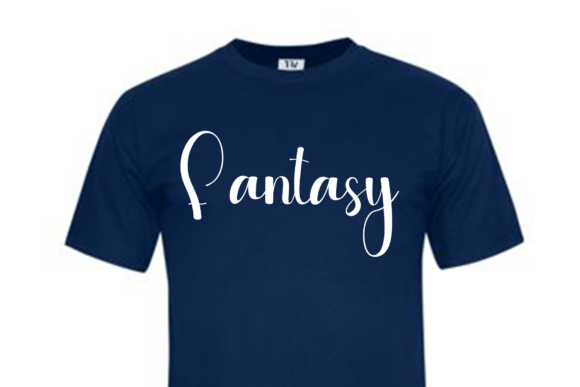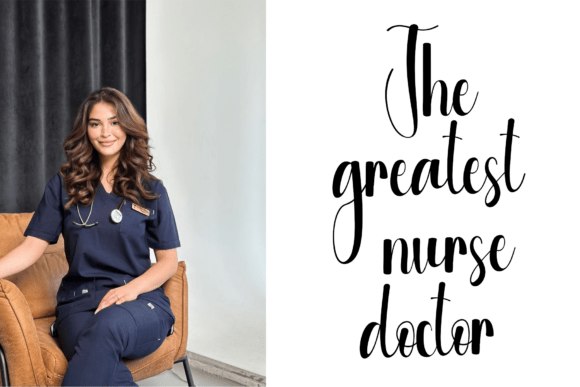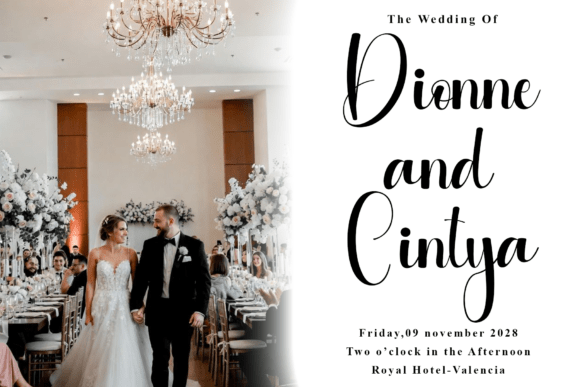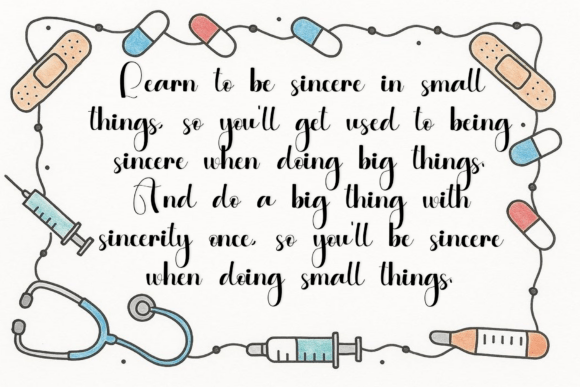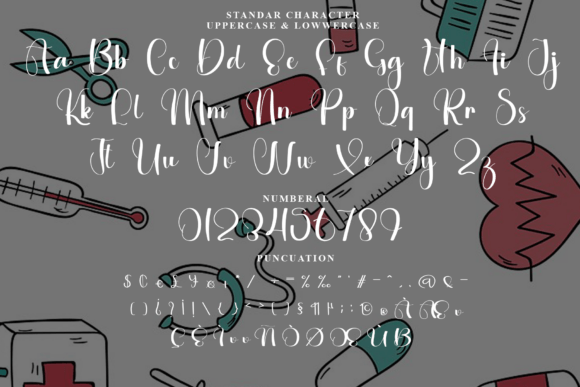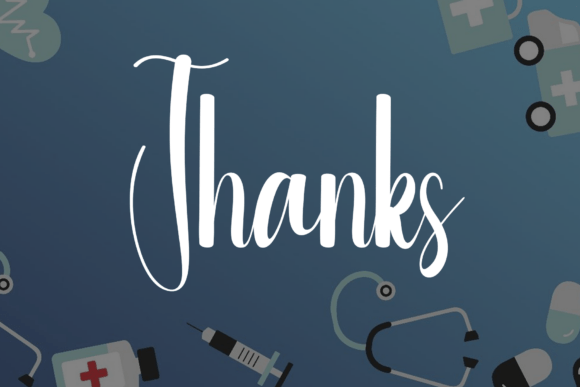
Introduction to Nursing Font
Infuse your projects with a sense of compassion and professional grace with Nursing, a standout typeface from our Modern Handwritten Collection.
This font features tall, slender letterforms and a gentle, rhythmic flow that balances a human touch with a clean, organized structure Its unique and professional silhouette makes it perfectly suited for healthcare branding, wellness blog headers, medical infographics, and personalized stationery.
Key Features of Nursing Font